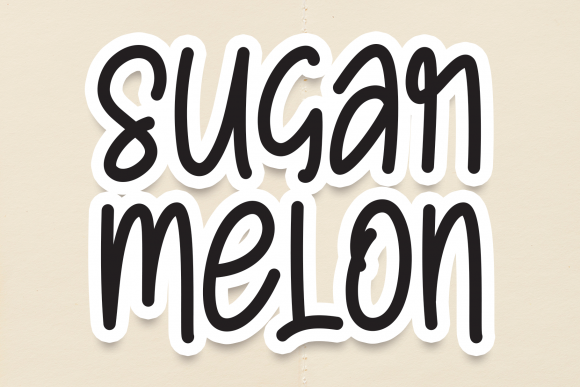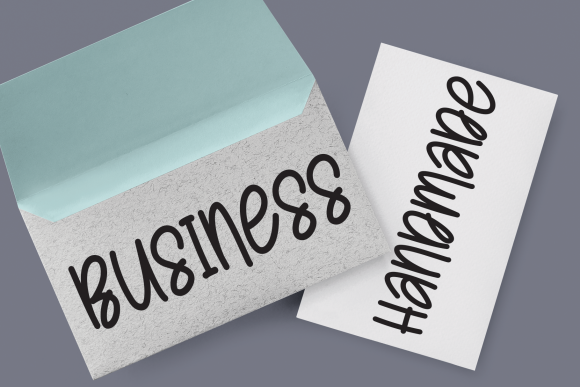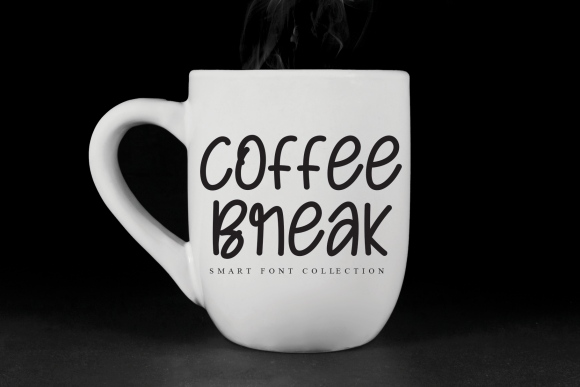
About Sugar Melon Font
Sugar Melon is an incredibly quirky and sweet display font. Whether you use it for cartoon related designs, children games or just any creation that requires a lovely touch, this font will be an amazing choice.